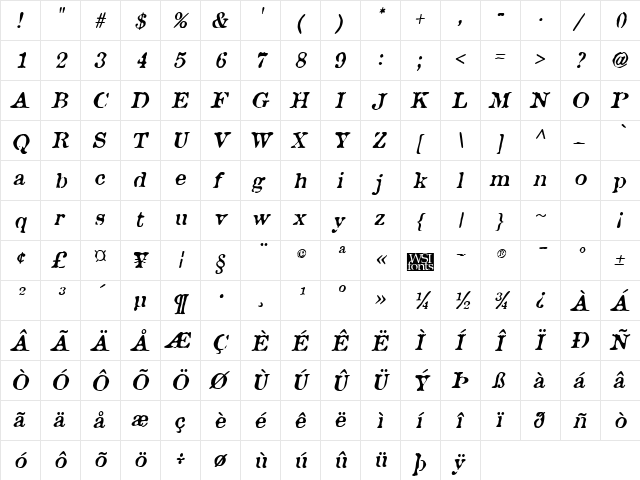
Brunine Italic
Design Context for Brunine Typeface
Brunine is a composed and adaptable typeface that performs quietly and consistently across a wide range of design contexts. The dynamic lean of this cut emphasises speed and emphasis in any layout.
Pro Tip: Use Brunine for emphasis, pull quotes, and subheadings where its slanted energy can add rhythm to the layout.